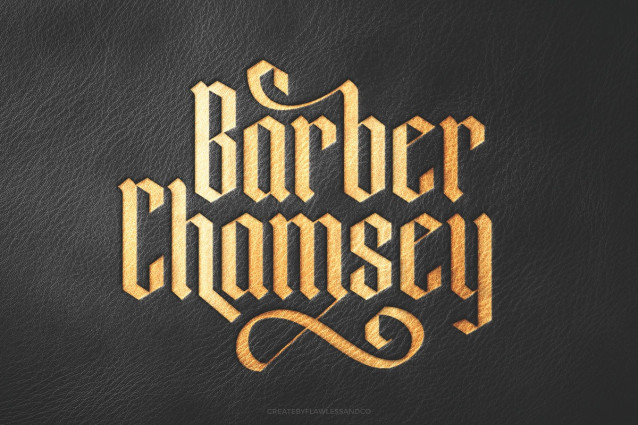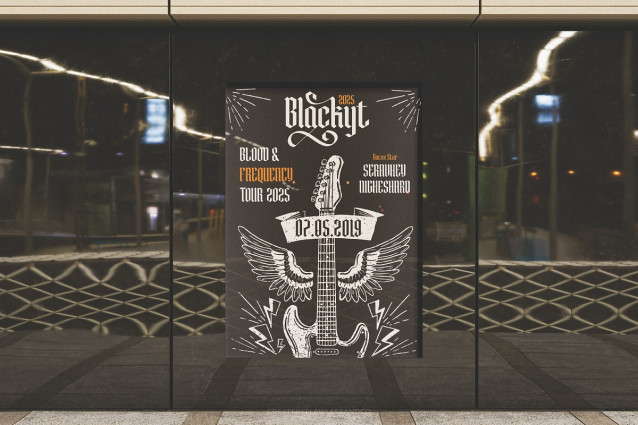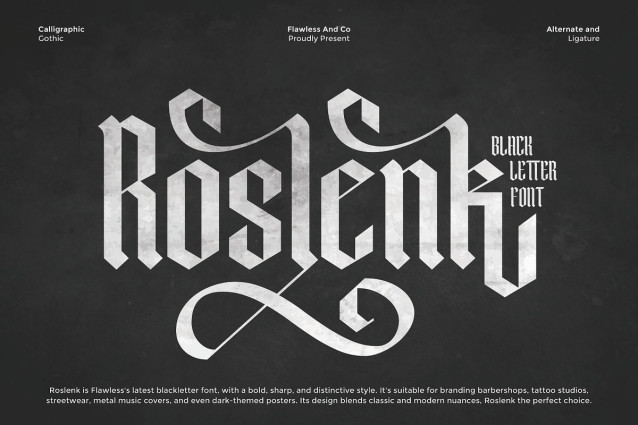
Roslenk Blalckletter Font
Roslenk Blalckletter Font is a bold blackletter font with a sharp, striking, and timeless character. Its design captures the essence of gothic calligraphy while blending in a modern touch, making it stand out in every project. Perfectly suited for branding barbershops, tattoo studios, streetwear fashion, heavy metal music covers, dark-themed posters, and more — Roslenk delivers both power and elegance in one package. With its distinctive curves, strong lines, and dramatic flair, Roslenk is the ideal choice for designers seeking a font that leaves a bold impression.